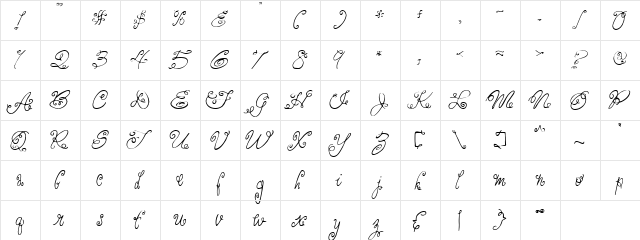
PC Thread Regular
Design Context for PC Thread Typeface
PC Thread is a composed and adaptable typeface that performs quietly and consistently across a wide range of design contexts.